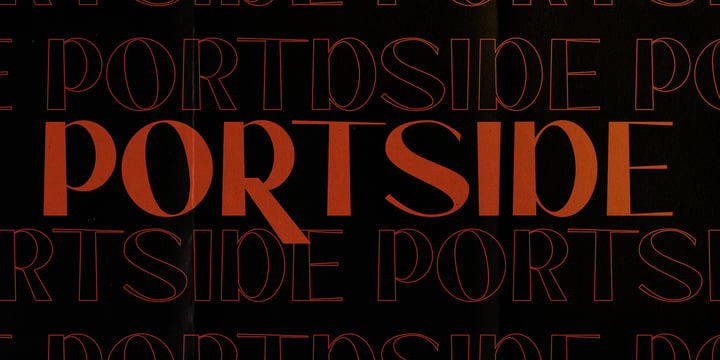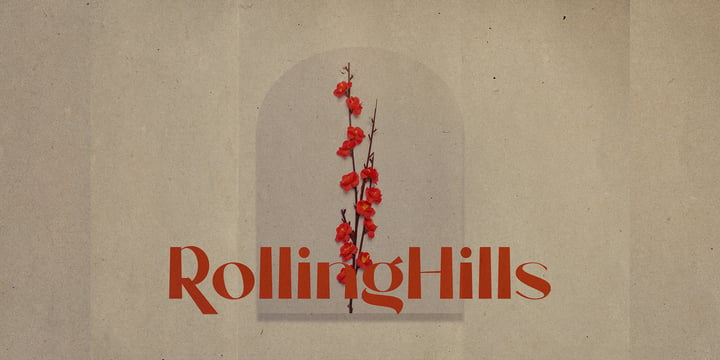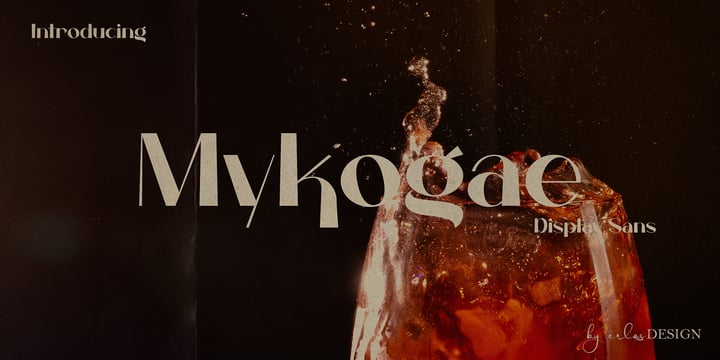
Mykogae Font Family
Mykogae Font FamilyMykogae is a display sans serif with modern style and trendy. No matter the topic, this font will be an incredible asset to your fonts’ library, as it has the potential to elevate any creation. It is perfect for book covers, social media post, logos, business card, quotes and so much more.